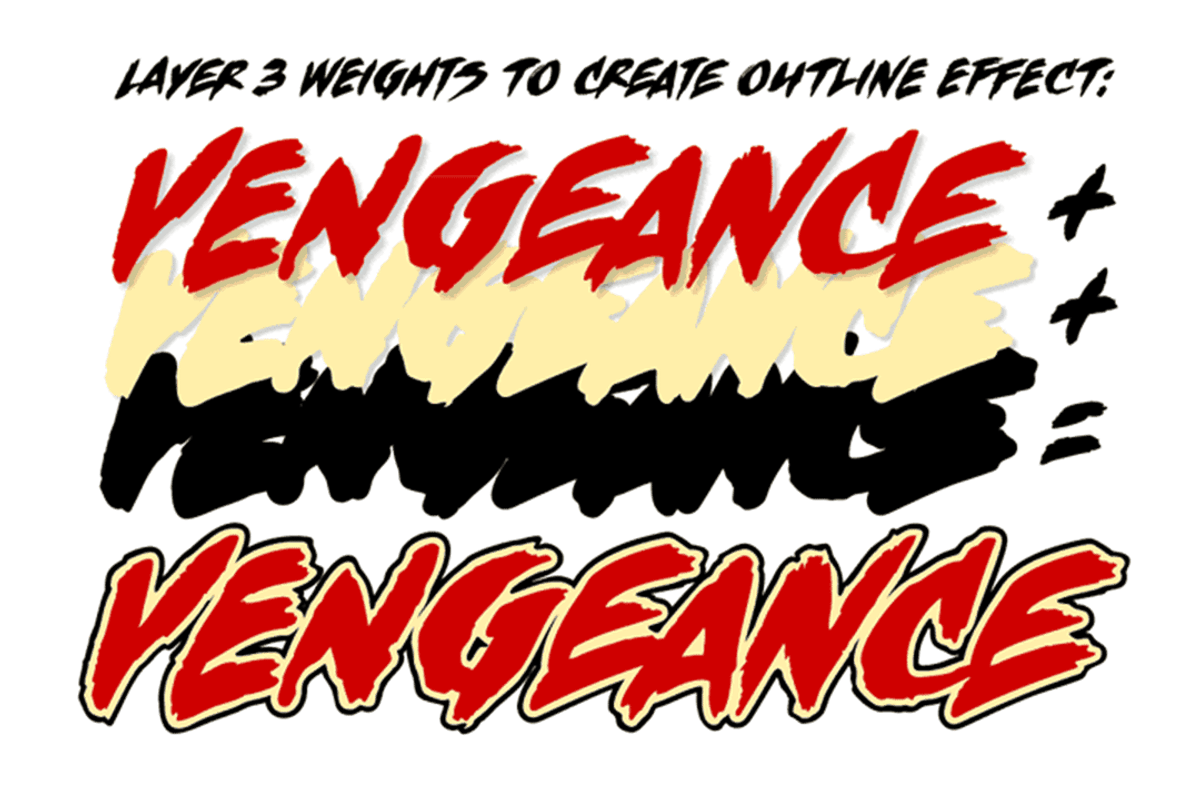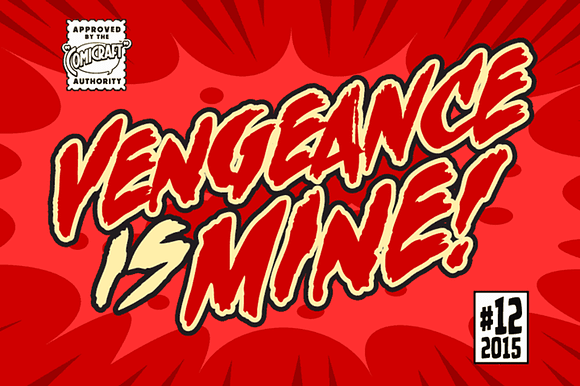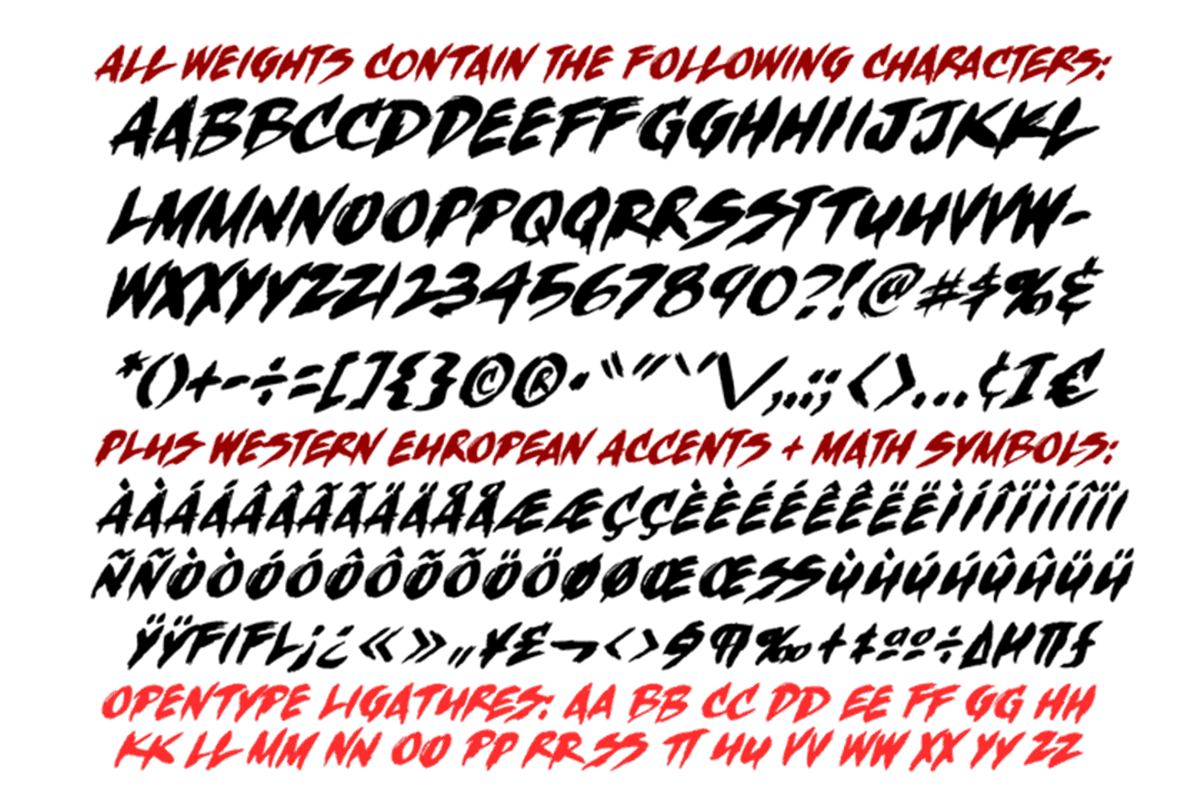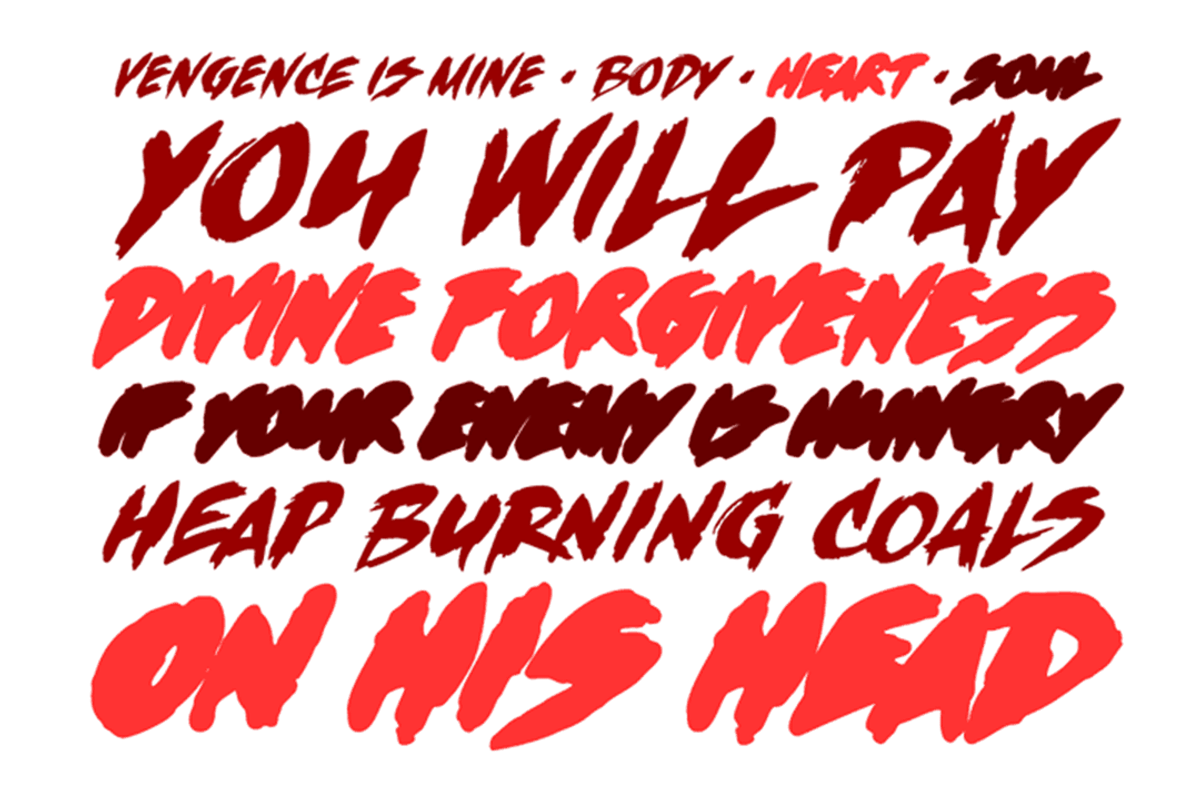
Vengeance is Mine Brush Comic Font
VENGEANCE IS MINE, I WILL REPAY, sayeth the Lord. "BUT IF YOUR ENEMY IS HUNGRY, FEED HIM, AND IF HE IS THIRSTY, GIVE HIM A DRINK -- FOR IN SO DOING YOU WILL HEAP BURNING COALS ON HIS HEAD."
"AND FURTHERMORE" sayeth the Lord, "WHEN I FINALLY GET AROUND TO EXPRESSING MY VENGEANCE, LO. MY WORD SHALL BE RENDERED IN A FONT WITH THREE RAGGED LAYERS -- VENGEANCE IS MINE!"
Why Vengeance is Mine Brush Comic Font is worth a look
Vengeance is Mine Brush Comic Font by Comicraft Fonts fits naturally into Branding, posters, packaging, typography.